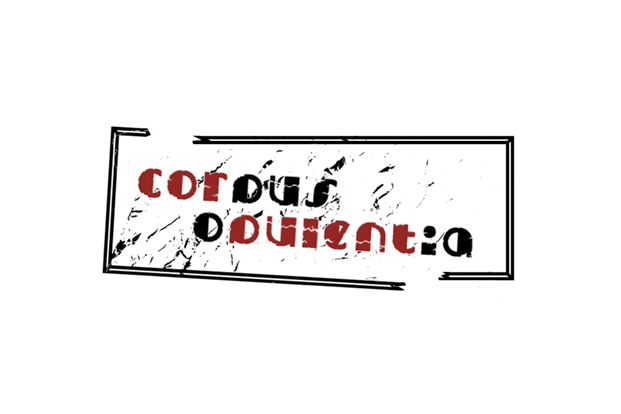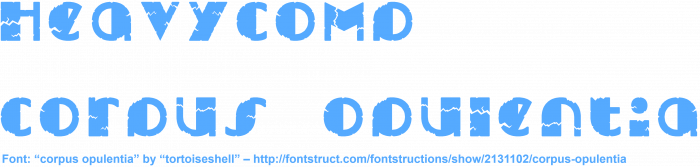
Awesome work!
Wonderful fractured/deconstructed deco font!
The letters look like that the Hulk smashed them to pieces. Wonderful font!
I like this take on unicase. The cracks are very convincing.
Oh wow!
Would look great in a documentary about the 1929 stock market crash.
"Wealth of the body"? Is Google tripping?
the one weird thing of the font: the name
the ok one: the cracks in the font
the great one: it looks like the broadway font
Cumbling
A very good font! Good work
Someone's weight can break the font.